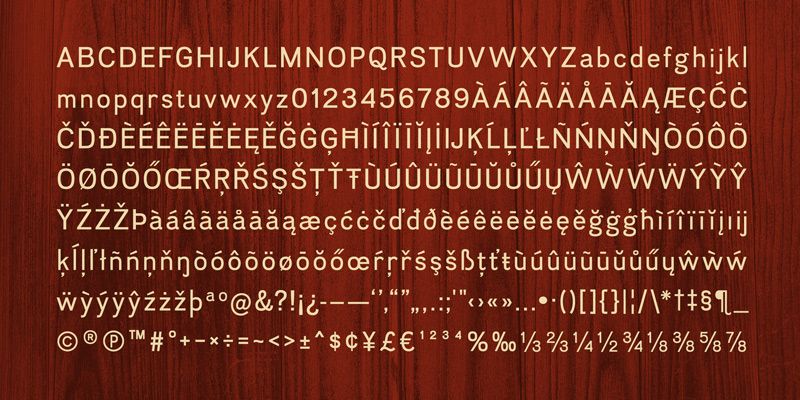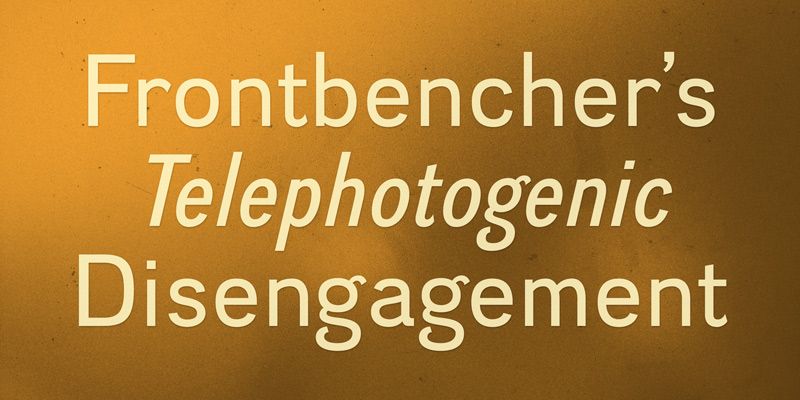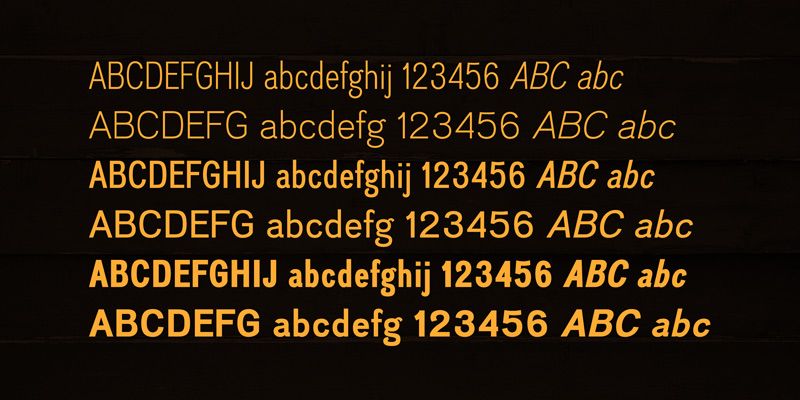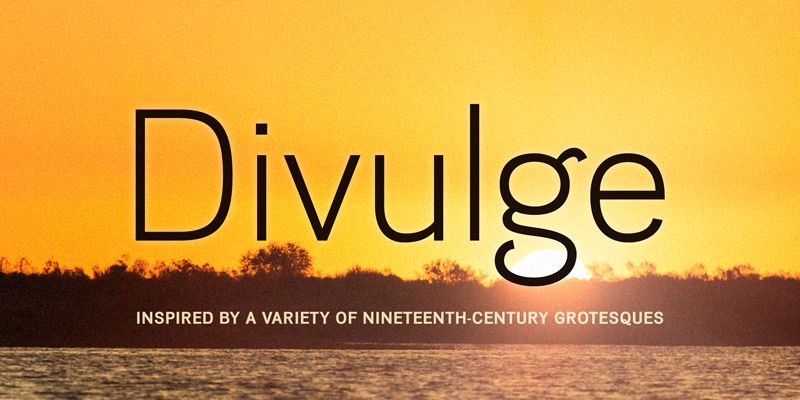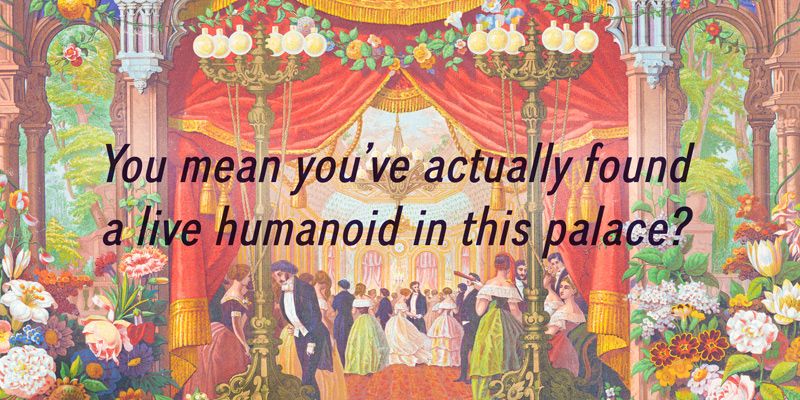
Divulge is a contemporary grotesque with an eye on the awkward charm of nineteenth- and early twentieth-century sans-serif metal type. Its restrained irregularities and condensed stance give it an old-fashioned tone without turning a layout into a period imitation. It works particularly well as the quieter partner to an ornate display face: on a spirits label, tea tin, botanical package, or confectionery box, Divulge can handle varieties, origins, dates, tasting notes, and other supporting information. Light, Regular, and Bold styles, each with an italic, provide a compact hierarchy for menus, editorial pages, and identity systems. Divulge is useful whenever a design needs historical warmth and everyday clarity in the same typographic layer.